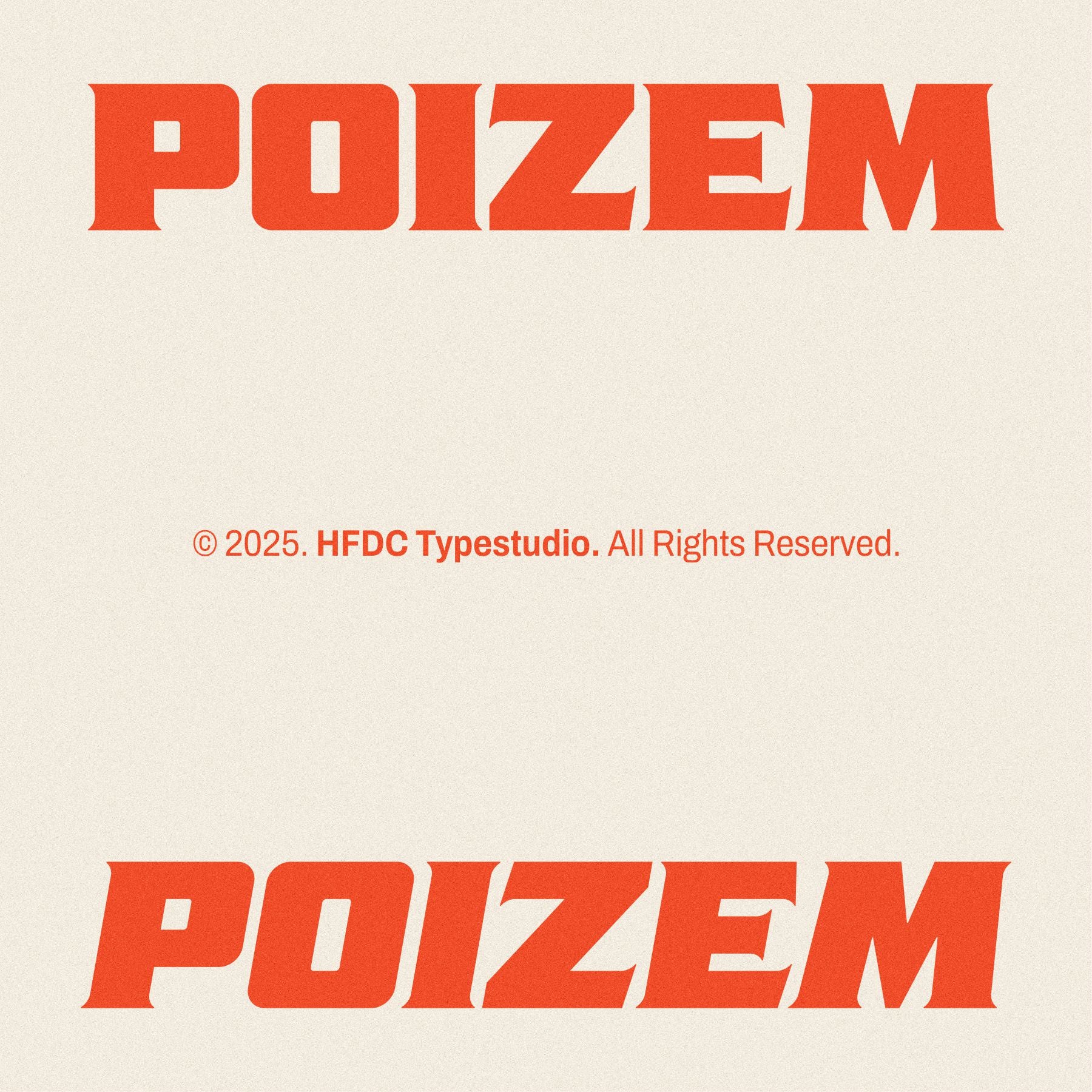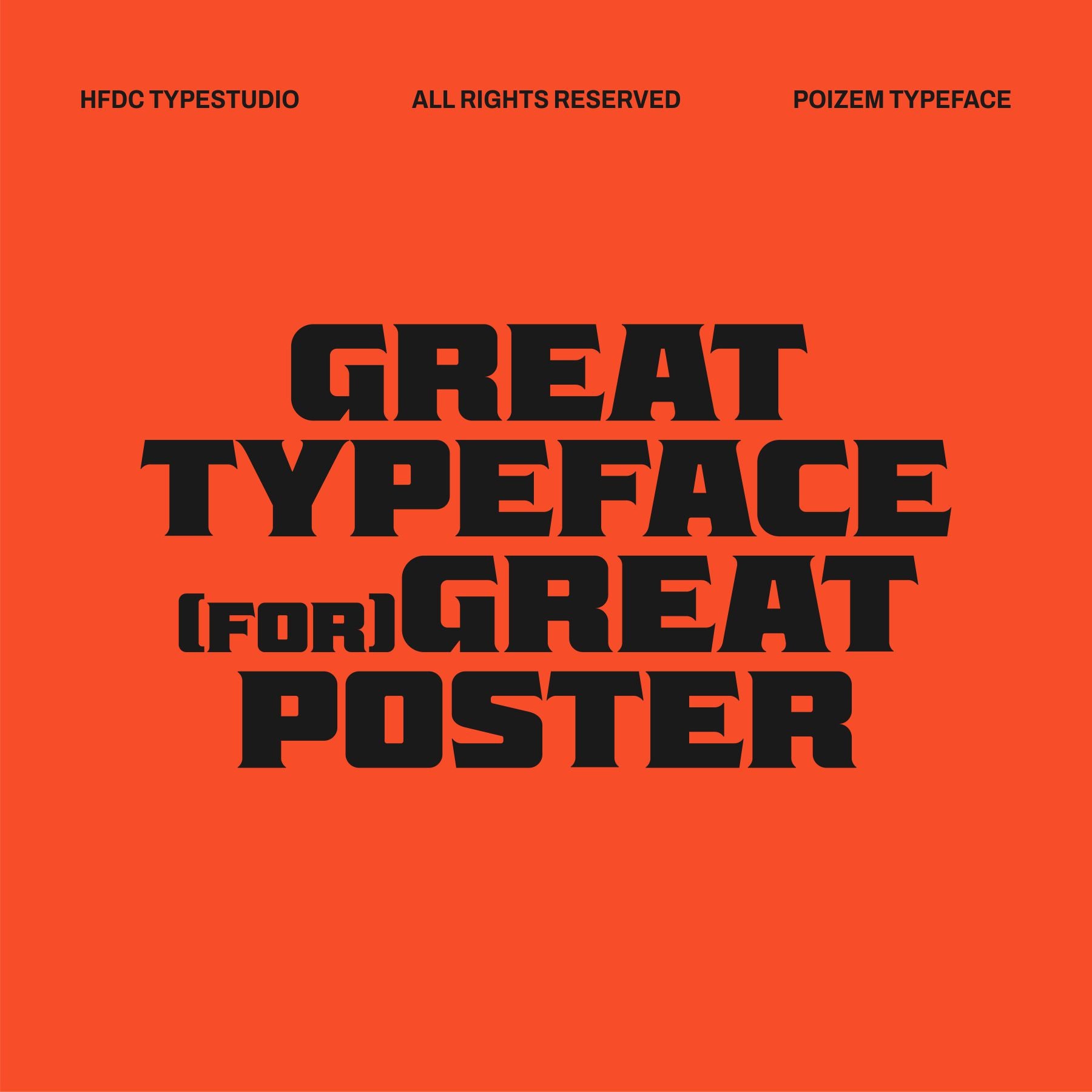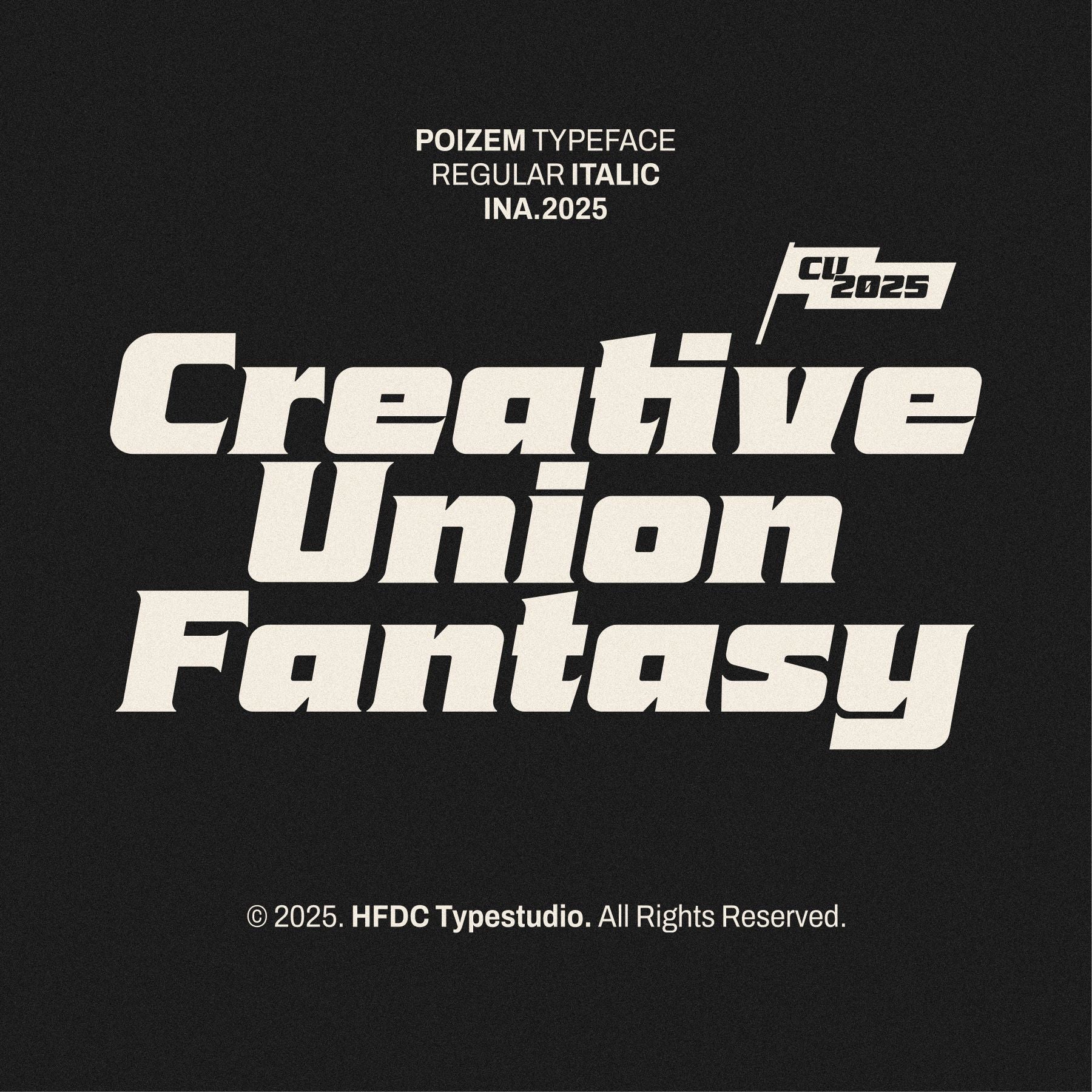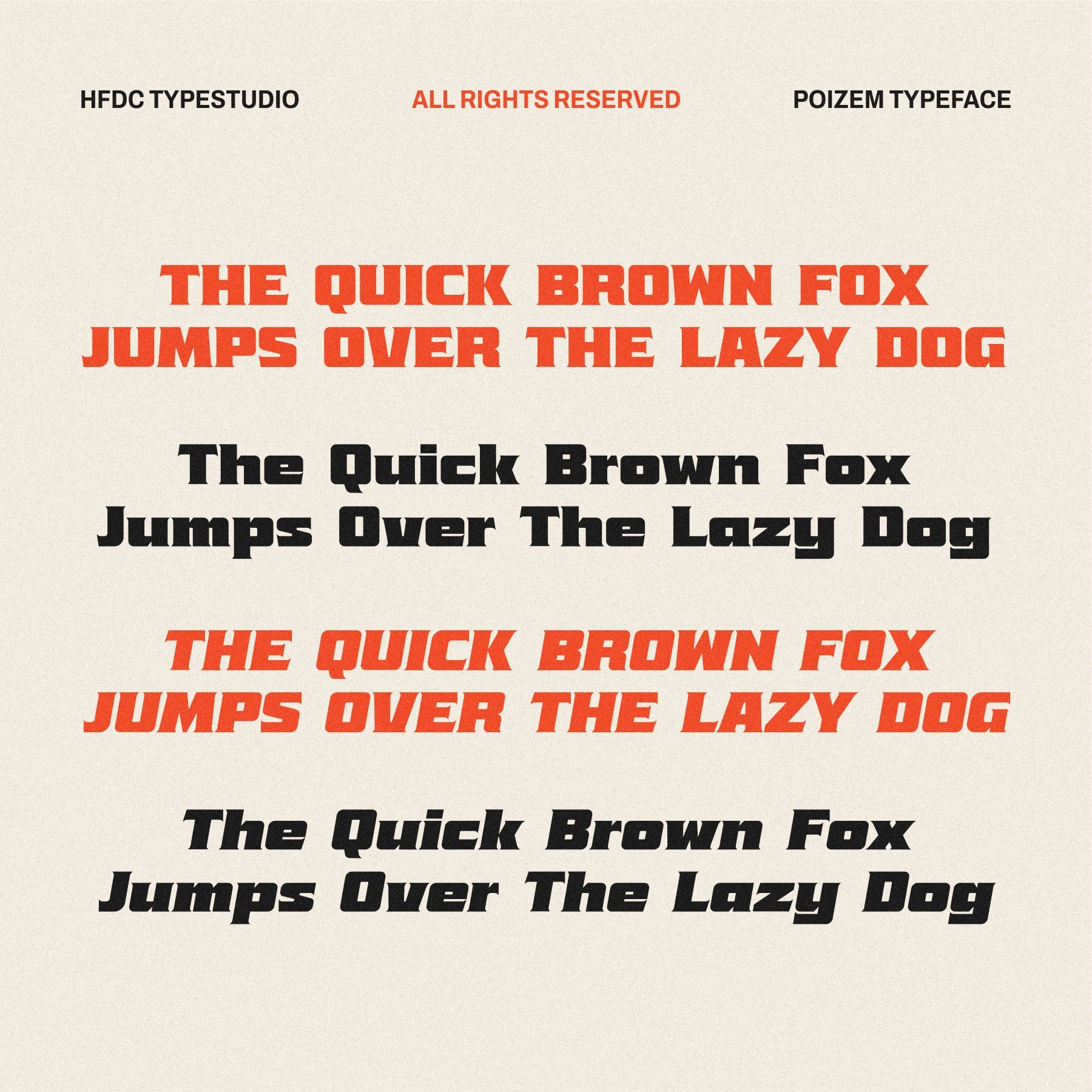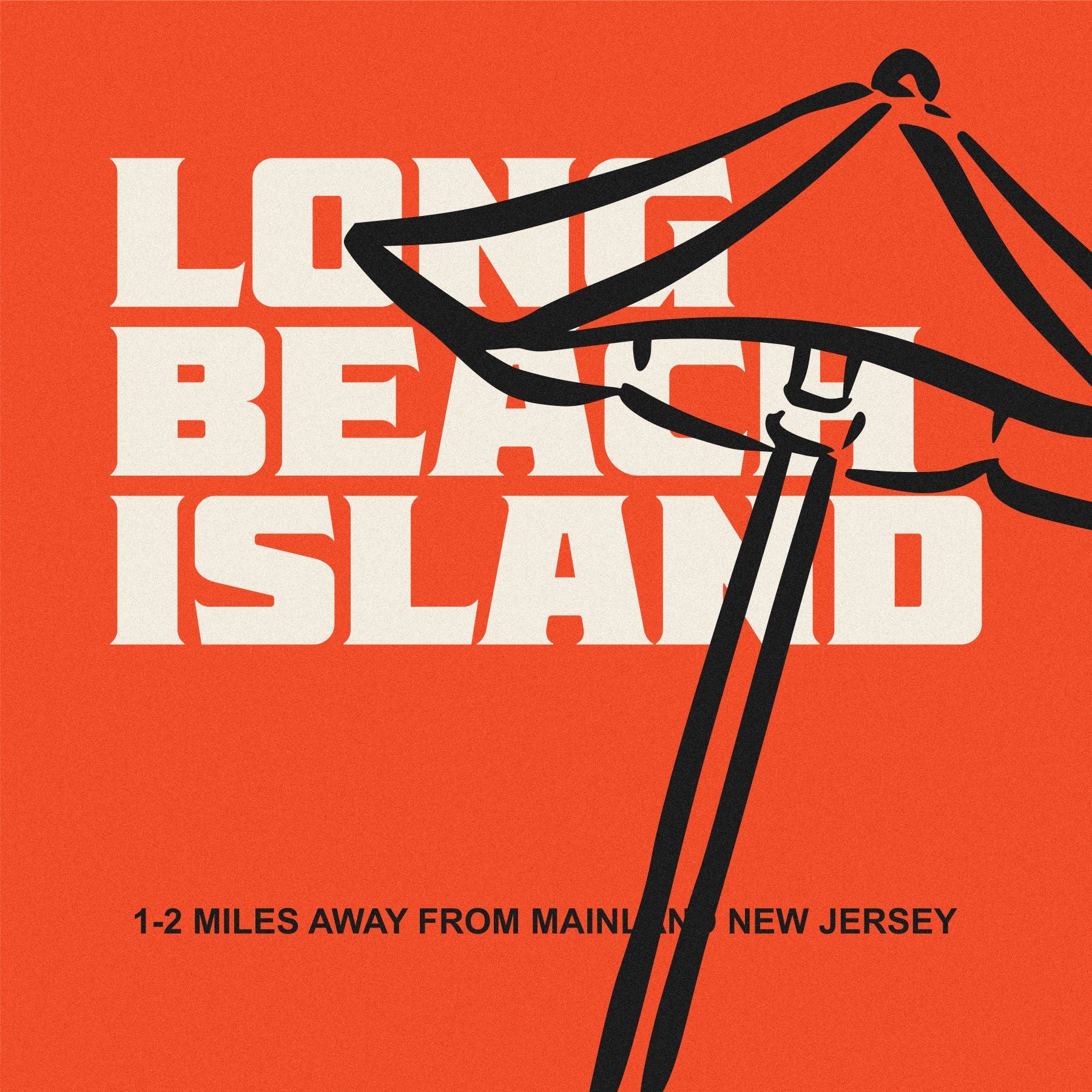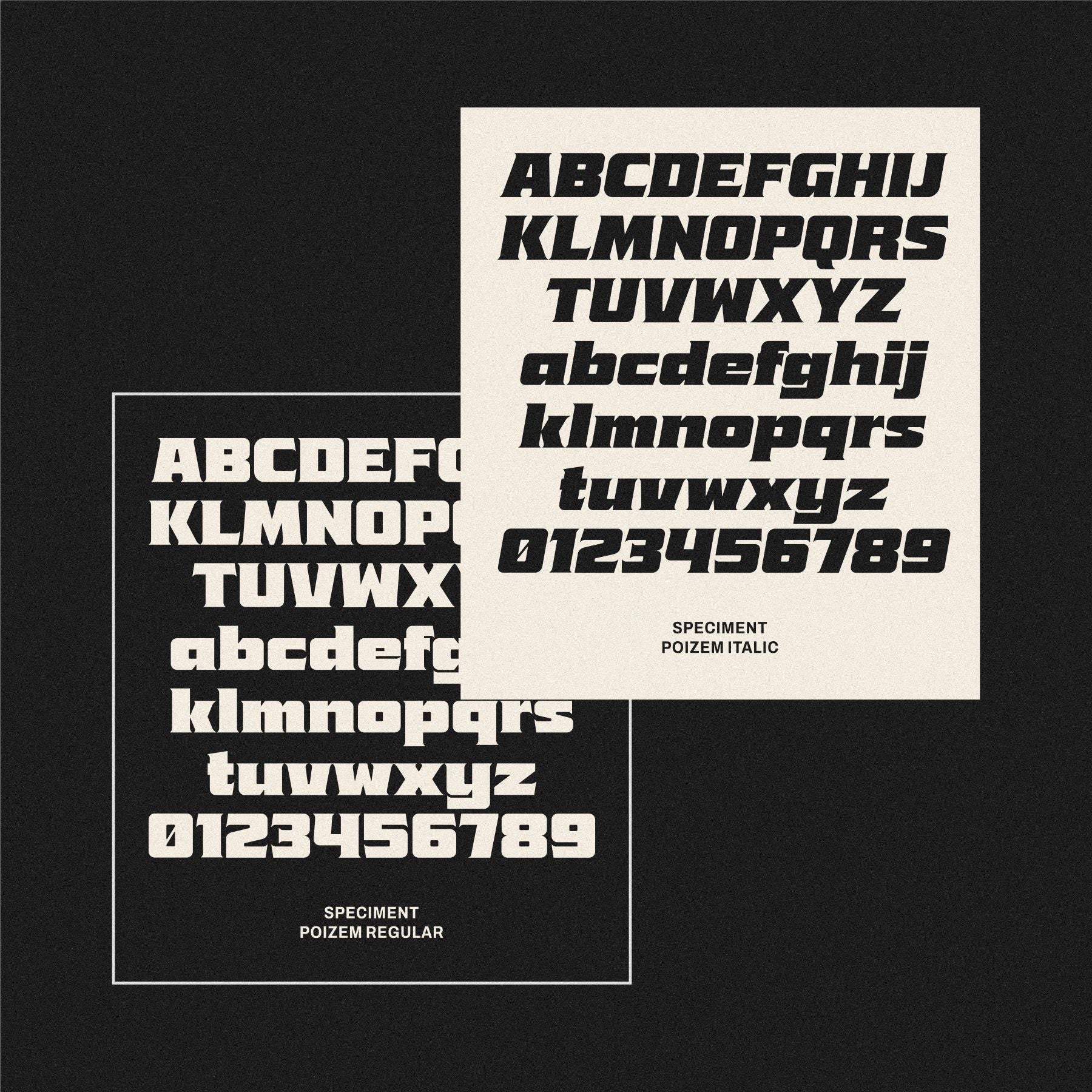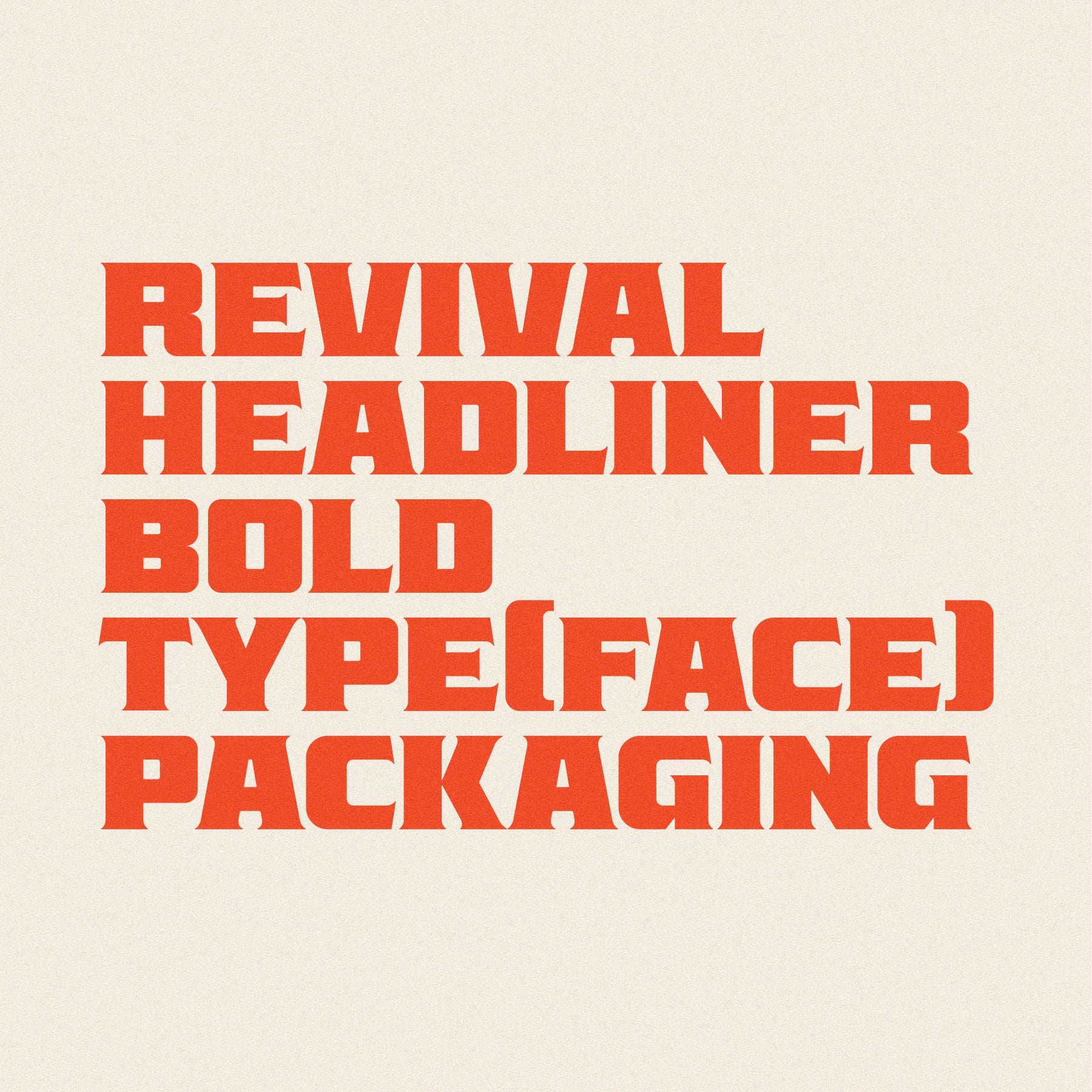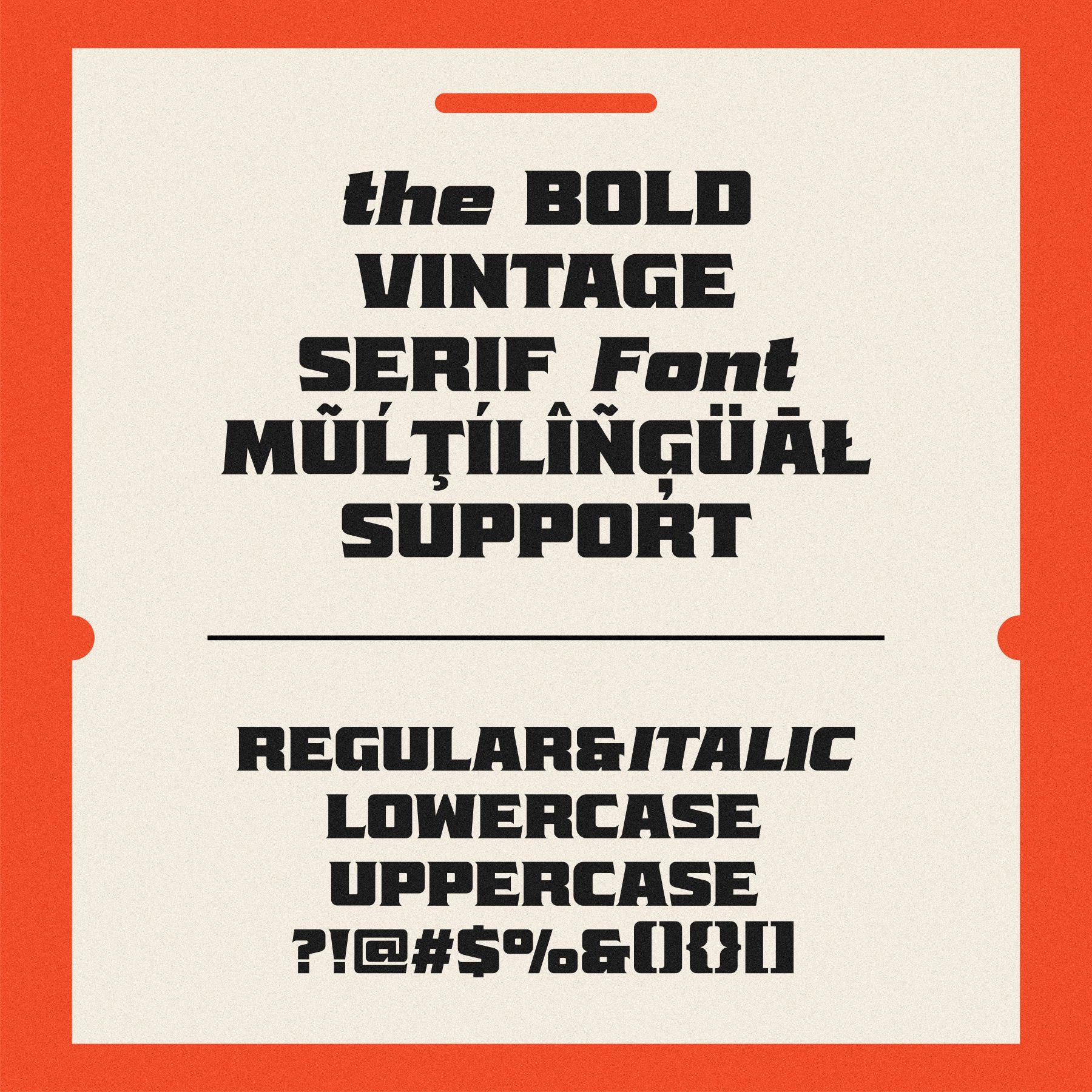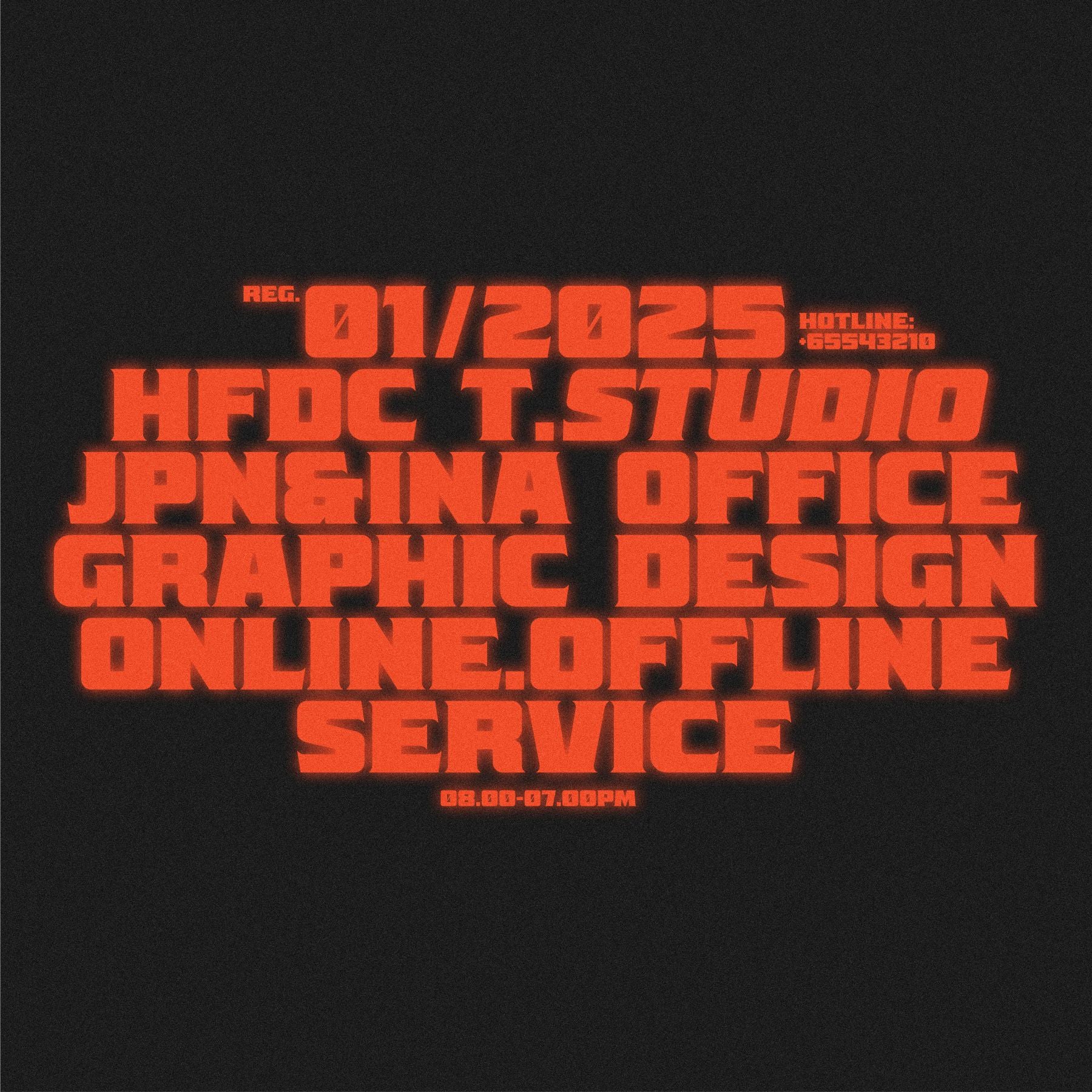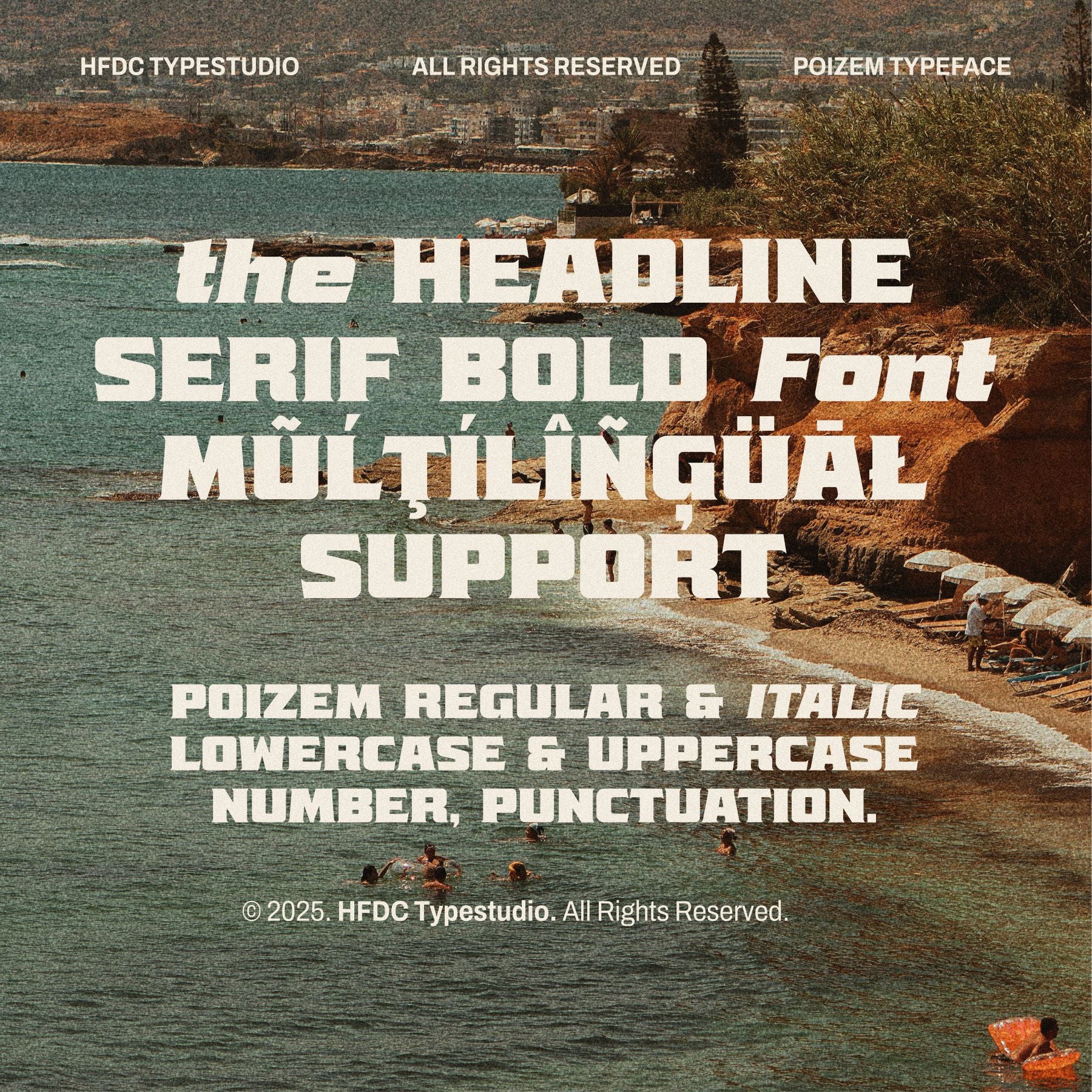
Poizem Bold Serif Typeface
Poizem is available in Regular and italic styles. The Poizem font is included in the category of bolder serif fonts suitable for headlines in your design. With thick and wide characters, it will make your design stand out more.
Poizem is perfect for poster designs, covers, product packaging, content thumbnail titles, branding, promotions, logotypes, and other designs.
The Poizem Bold Serif Typeface is a bolder serif font available in Regular and Italic styles, featuring thick and wide characters designed for headlines. It is categorized as a display font suitable for various design applications.